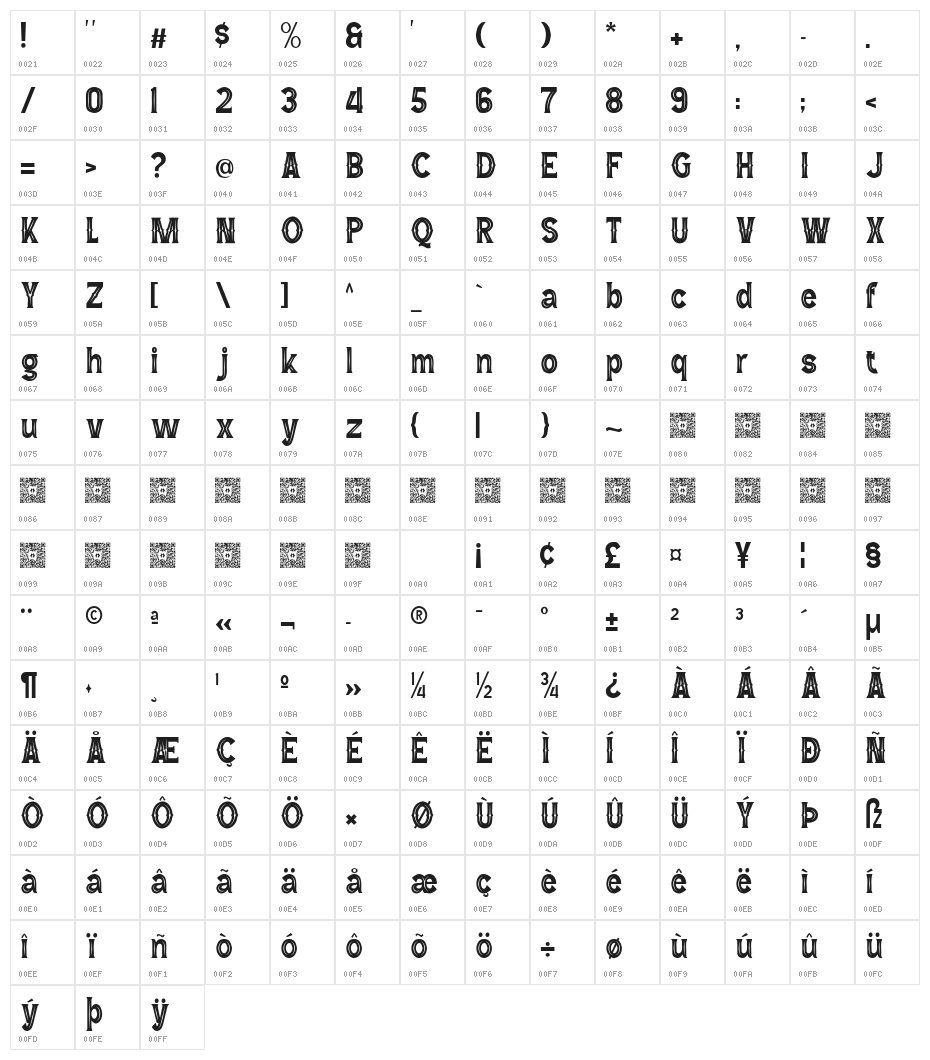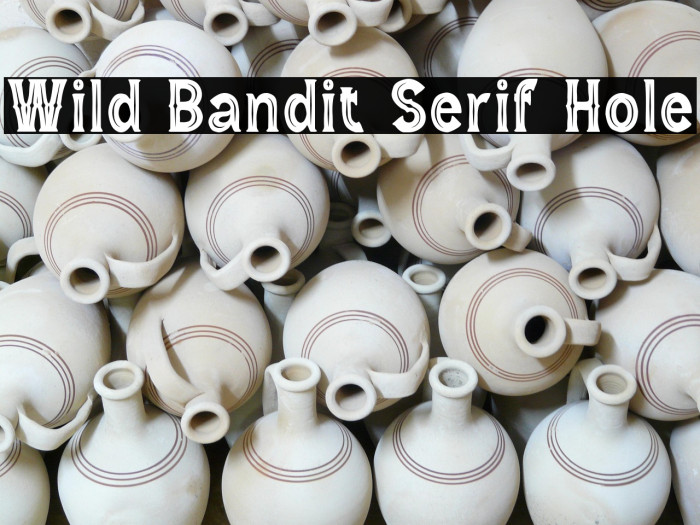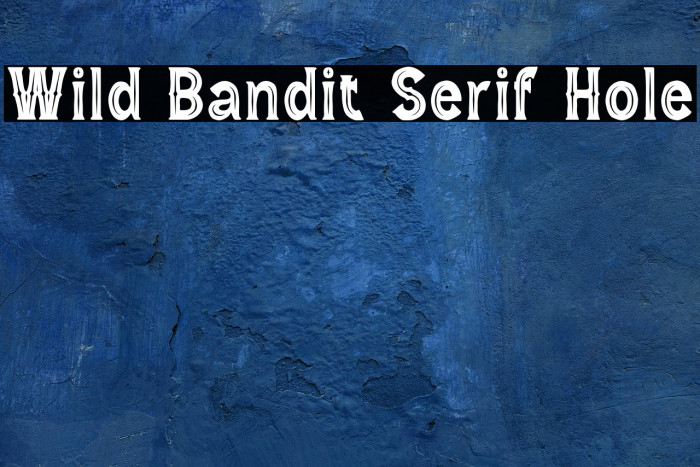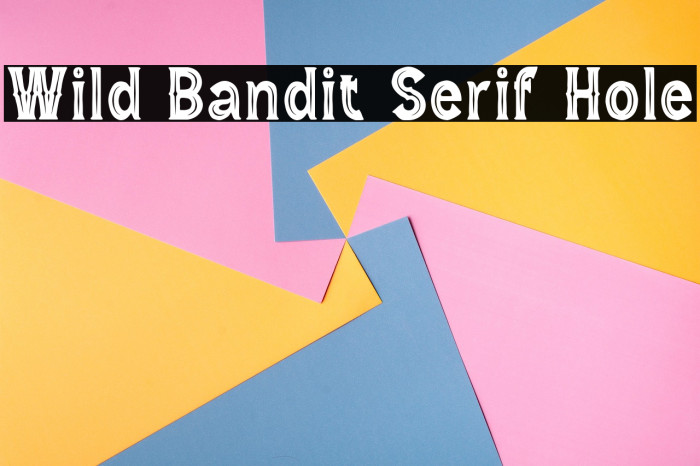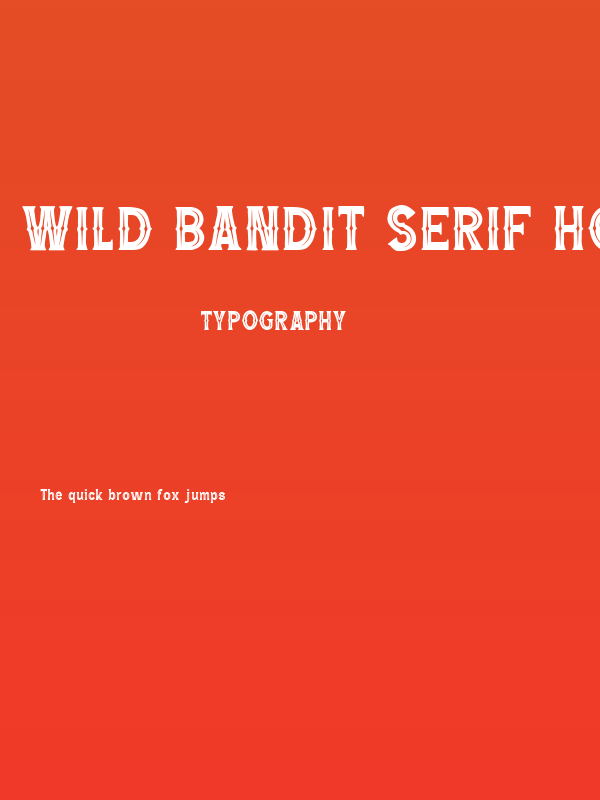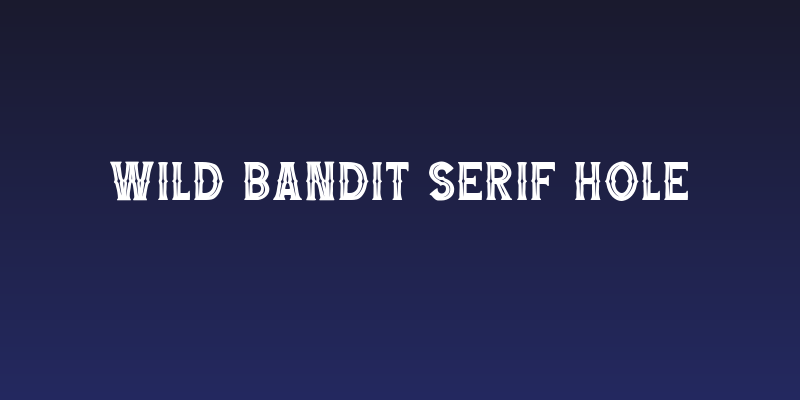
Wild Bandit Serif Hole Font
Wild Bandit Serif Hole Description
This font features a bold and adventurous style, characterized by its distinct serif elements and decorative cutouts within each character. The uppercase letters exhibit a strong presence with sharp serifs and unique internal detailing that adds a rugged, yet stylish appearance. The lowercase letters maintain this theme, offering a cohesive look across both cases. Numbers are equally bold, ensuring readability while maintaining the font's unique aesthetic. Special characters are designed to complement the overall style, making this font suitable for eye-catching designs. The combination of bold strokes and intricate details makes it ideal for projects that require a touch of wildness and creativity.
| Proposed Projects | Ideal for branding, poster design, album covers, and any project requiring a bold, adventurous look. |